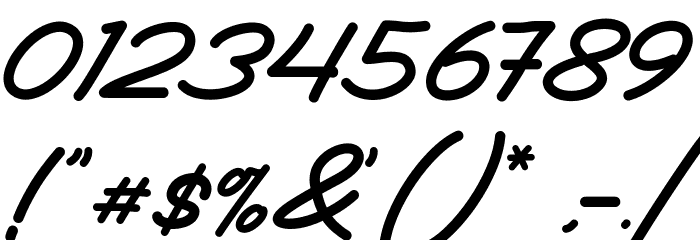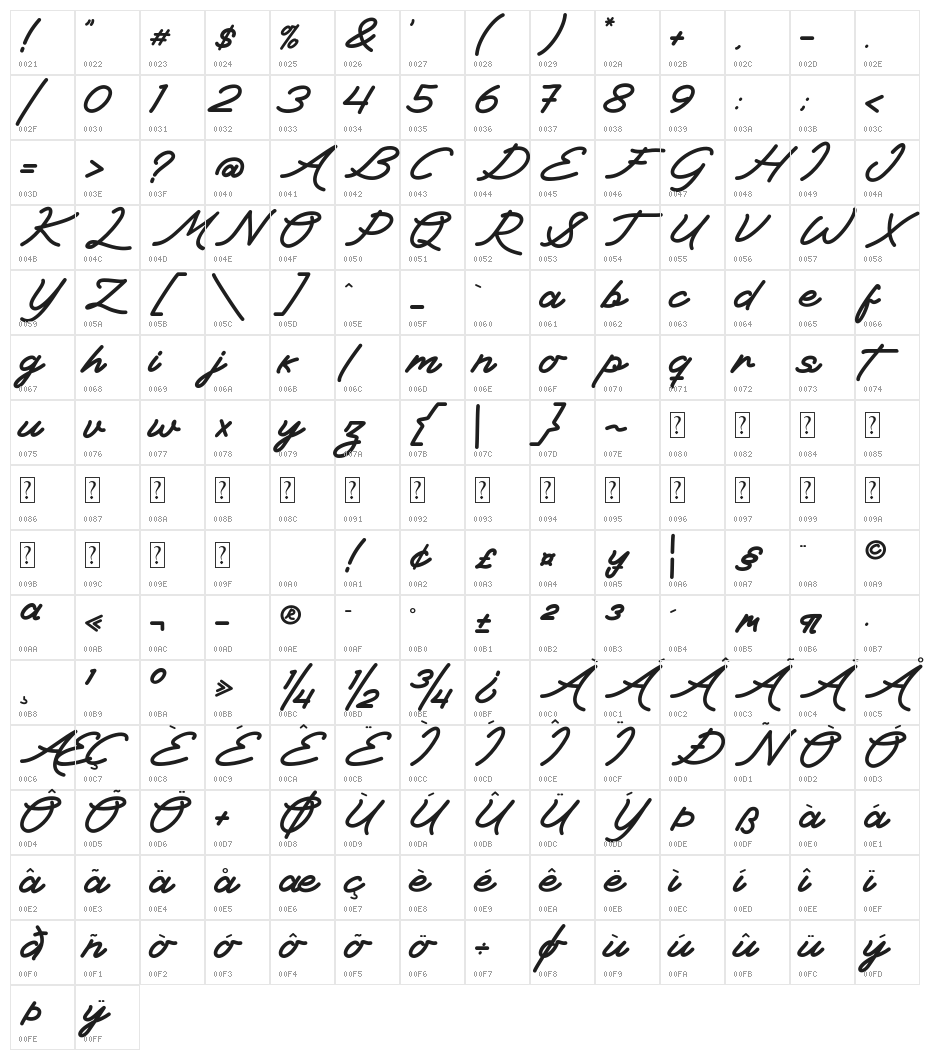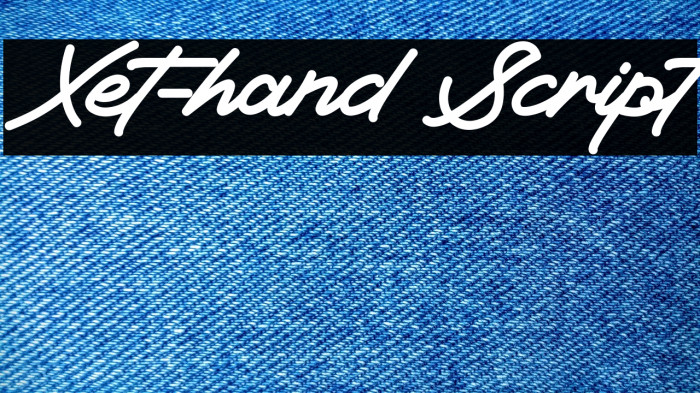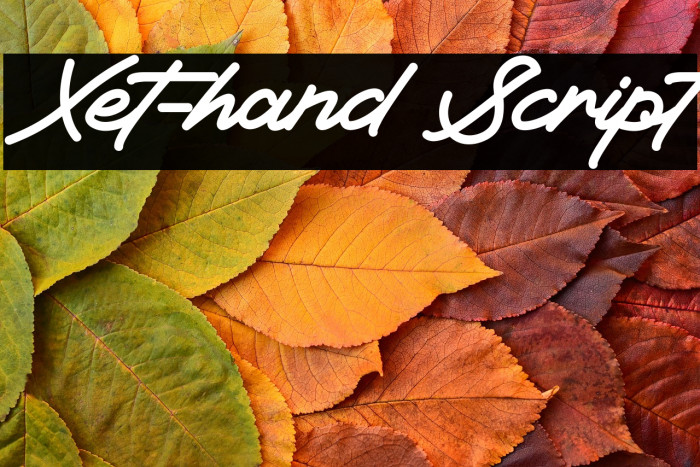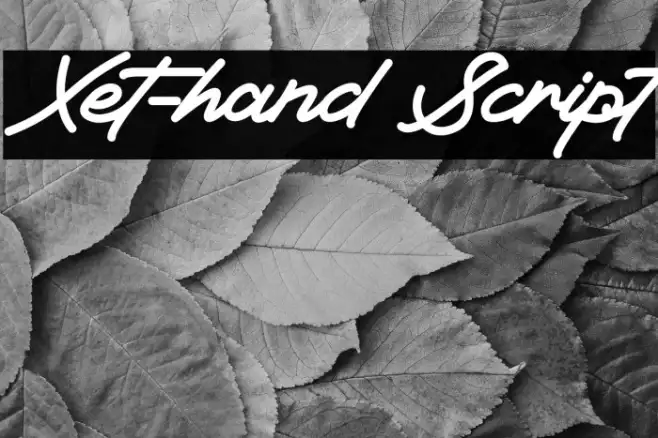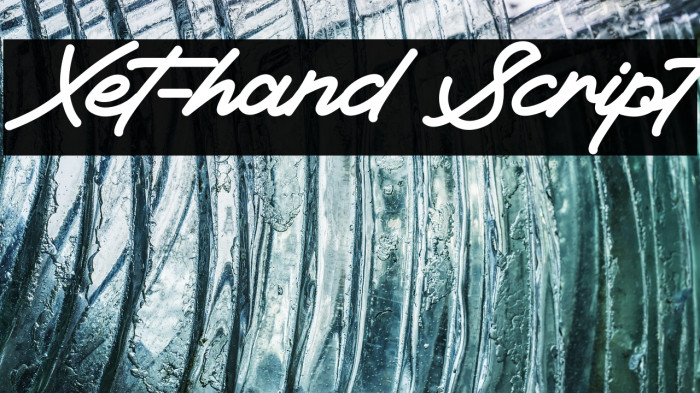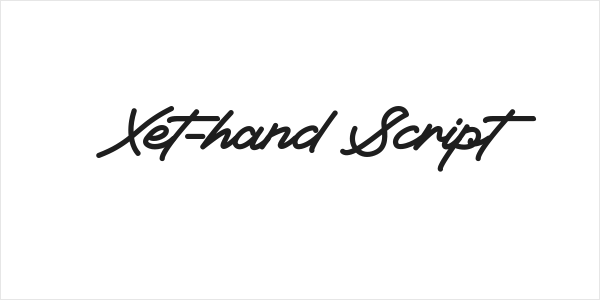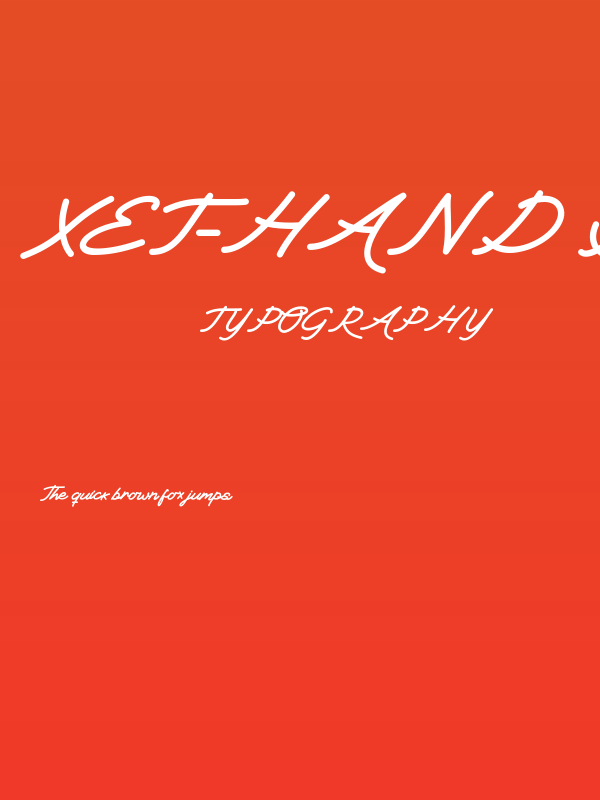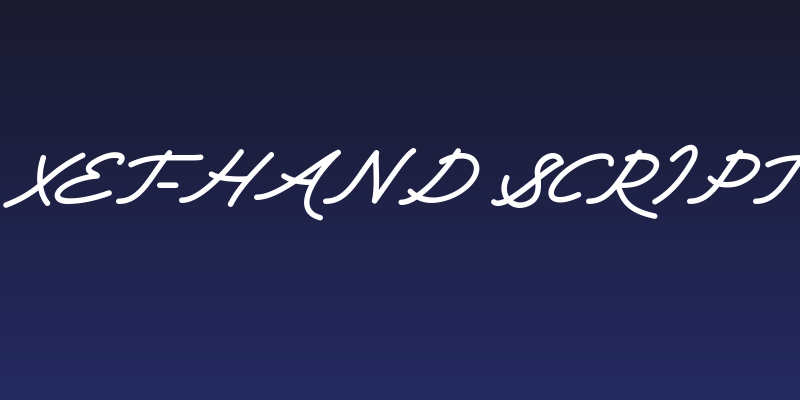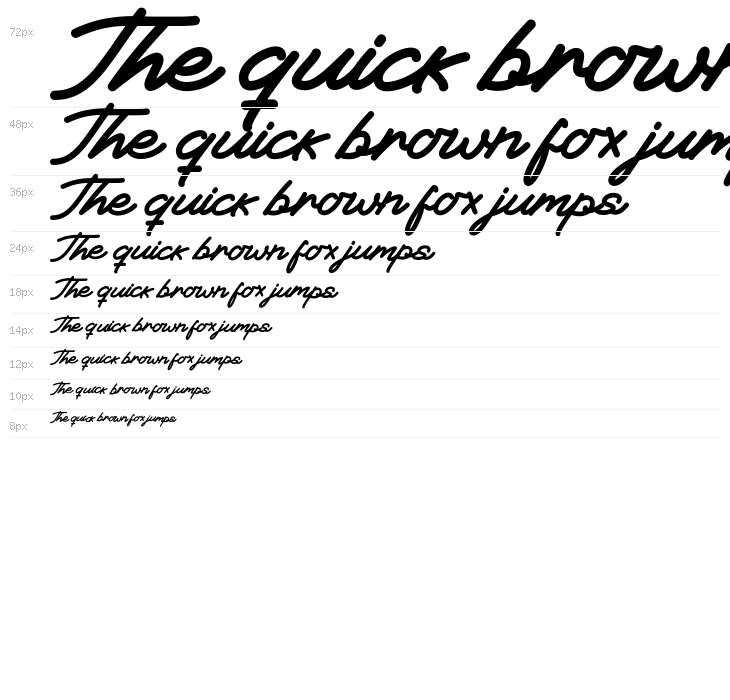
Xet-hand Script Font
Xet-hand Script Description
This font exudes a dynamic and fluid style, characterized by its elegant script form. The letters are interconnected, creating a seamless flow that mimics natural handwriting. The uppercase letters maintain a consistent height, while the lowercase letters vary slightly, adding to the organic feel. The numerals are bold and clear, ensuring readability. Special characters are crafted with the same attention to detail, integrating smoothly with the rest of the typeface. This font is ideal for projects that require a personal touch, such as invitations, greeting cards, or branding materials.